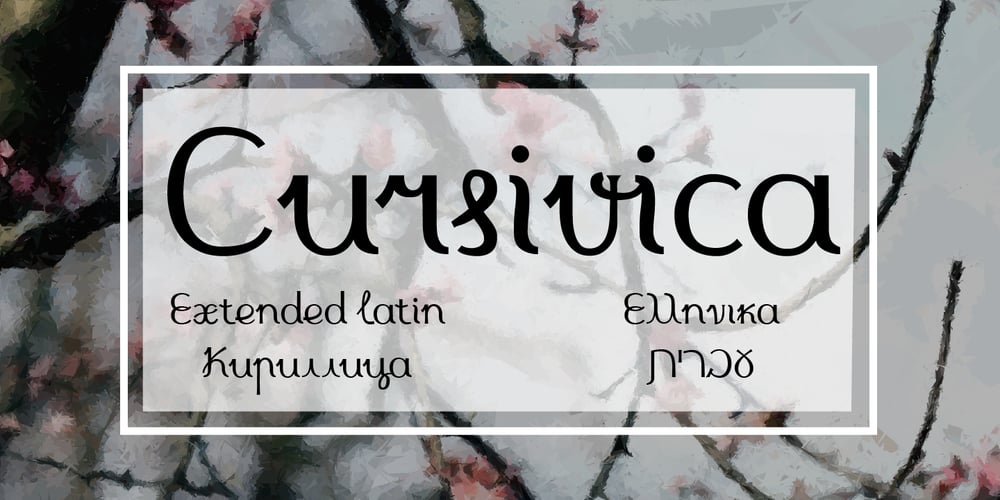
Cursivica Font Family was designed by Anna Tsuranova and published by LetterMuzara. Cursivica contains 1 styles and family package options. Cursivica is a decorative font. Its letters are an odd mixture of script forms and block letters straightening and slimness. Cursivica supports several writing systems and besides supports extended Latin characters, also it contains extended Cyrillic (including Tatar letters), Greek alphabet and Hebrew. This font will perfectly fit for invitation letter design, packaging of cosmetic products, creams, etc.